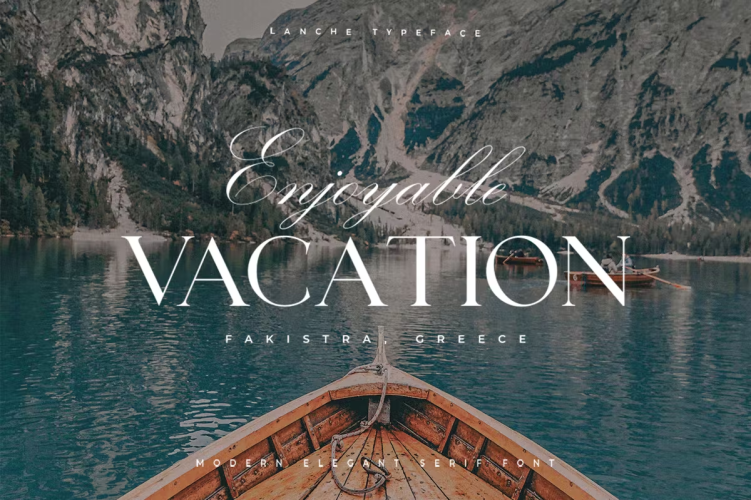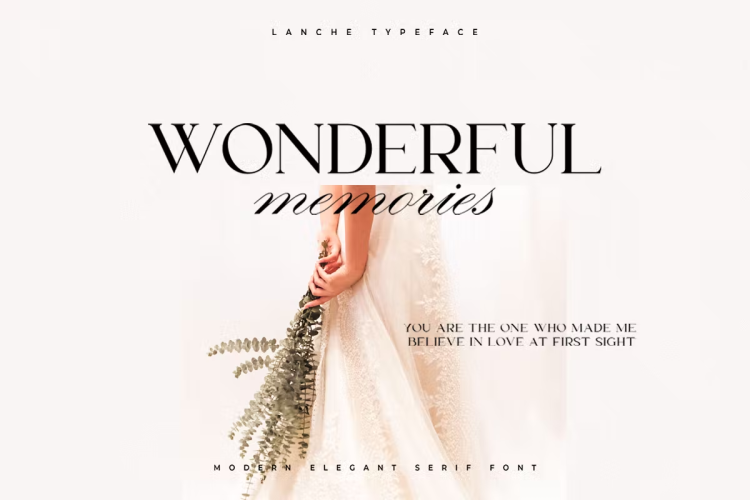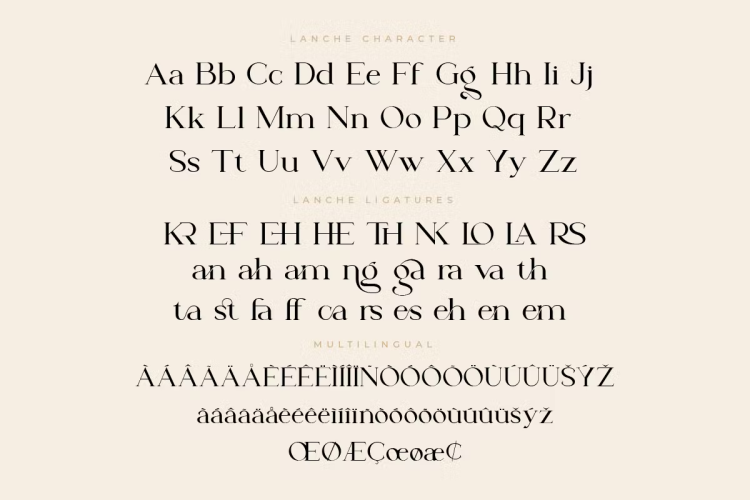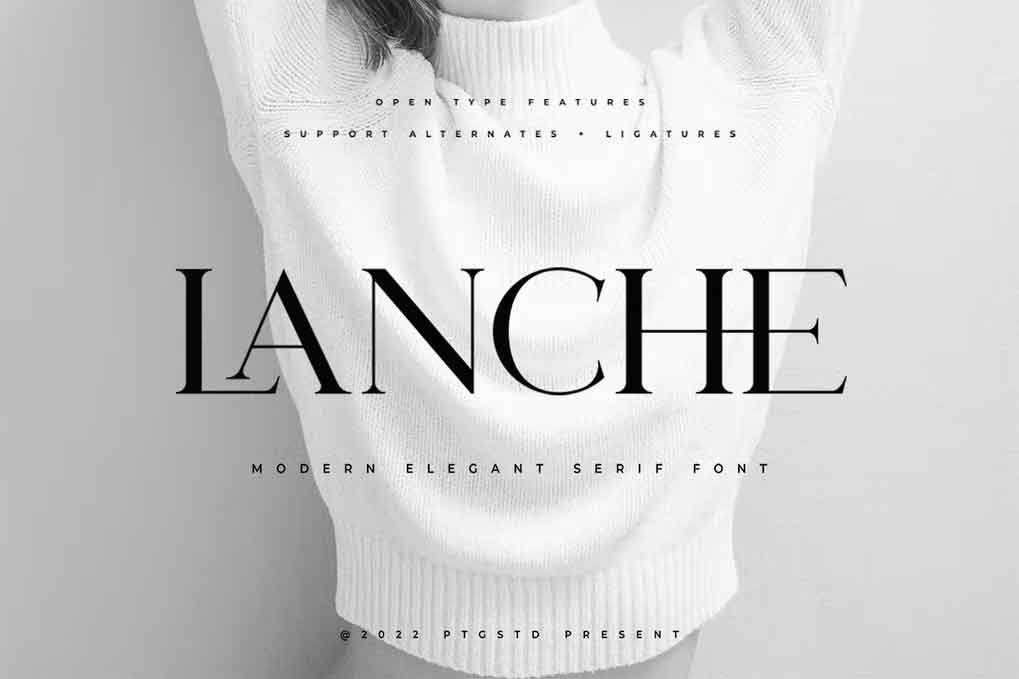
Lanche Font
Lanche Is An Modern Elegant Serif Font Inspired By Elegant Serif Typeface Font Features :
Lanche Is An Modern Elegant Serif Font Inspired By Elegant Serif Typeface
Where Lanche Font works best
Reports, white papers and book interiors hold the eye longer when the text face has real serifs; Lanche Font keeps that rhythm without looking old-fashioned.
Food, spirits and cosmetics brands lean on serif wordmarks to suggest age and care. Lanche Font gives that signal at wordmark size.
Set Lanche Font for the body of an award or a diploma and keep the recipient name in a script; the pairing is what makes a document feel official.
What kind of work does Lanche Font suit?
It sits in the Serif Fonts group and reads as elegant, modern, serif, serif fonts. That makes it a candidate wherever those qualities help: headings, packaging, social graphics and brand work. Set it at the size you plan to use before deciding.